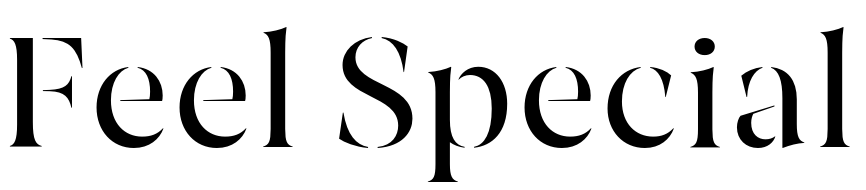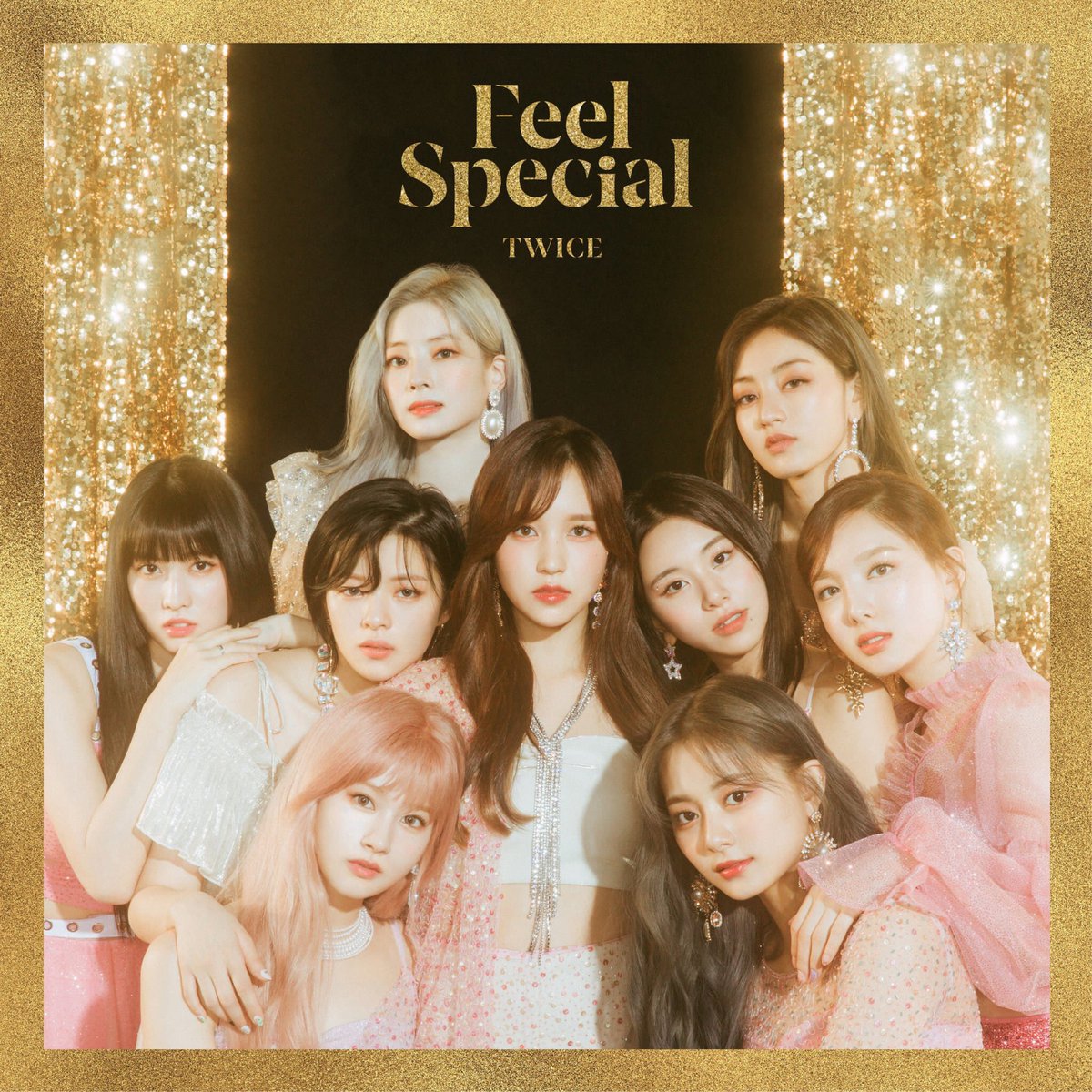
Feel Special Font
Fonts in UseFeel Special is a six-track EP released by the South Korean girl group TWICE released in 2019, featuring the title track "Feel Special".
In the album artwork, the group's name and the EP title are displayed in a sophisticated stencil font that resembles Ale Navarro's Joane Stencil typeface. You can view and download this font here.